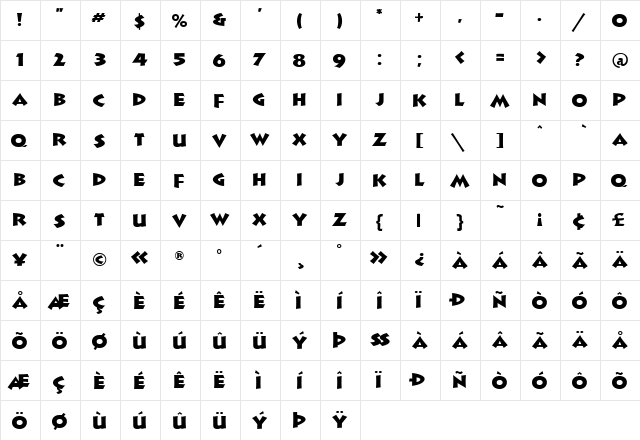
LHF Chunky Block Regular
| Foundry | Letterhead Fonts |
| Designer | Rob Cooper |
Design Context for LHF Chunky Block Typeface
LHF Chunky Block is a composed and adaptable typeface that performs quietly and consistently across a wide range of design contexts.